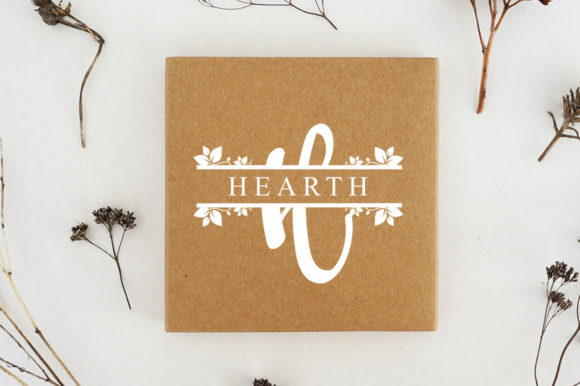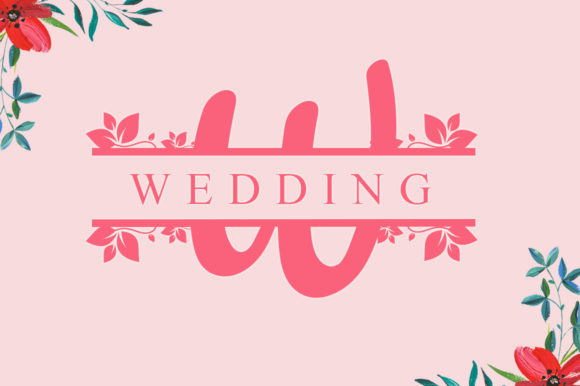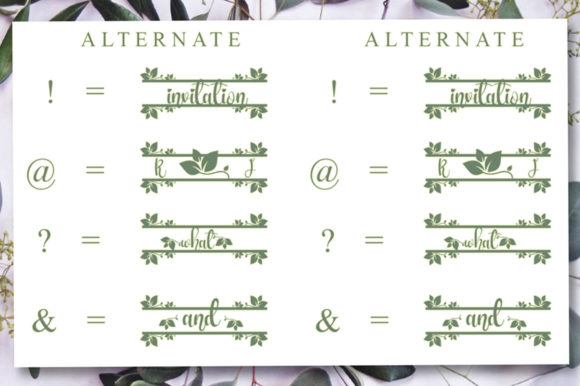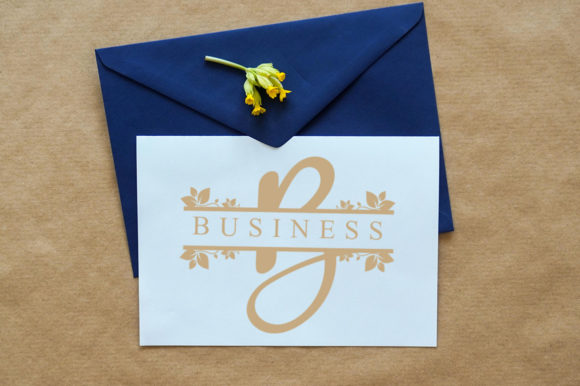
The Ultimate Guide to Absolute Monogram Font: Elevate Your Designs with Elegance
I’ll never forget the time I was working on a wedding invitation project, and my client asked for a font that exuded luxury and sophistication. I scoured the internet, tried countless fonts, but nothing seemed to fit the bill. That was until I stumbled upon Absolute Monogram Font. ✨ It was love at first sight! The intricate details, the elegant style, and the versatility of this font made it the perfect choice for my project. In this article, I’ll share my experience with Absolute Monogram Font, its features, and how to make the most of it in your designs.
An Honest Review of Absolute Monogram Font
• ✨ Highly detailed and decorative design
• ✅ Elegant and sophisticated style
• ✅ Perfect for wedding invitations, stationery, and social media posts
• ✅ Easy to read and understand, even in small sizes
While Absolute Monogram Font is an amazing font, there are a few things to keep in mind: ⚠️
• 🤔 Some characters may require manual kerning for optimal spacing
• ⚠️ Not suitable for body text or long paragraphs
3. Experiment with OpenType features, such as glyphs and stylistic alternates, to add visual interest
The Designer Inspiration Behind Absolute Monogram Font
The designer behind Absolute Monogram Font drew inspiration from traditional calligraphy and monogramming techniques. With a passion for elegant design and attention to detail, they created a font that would elevate any project to new heights. 💫
What is the best use for Absolute Monogram Font? Absolute Monogram Font is perfect for wedding invitations, stationery, social media posts, and any project that requires an elegant and sophisticated touch.
Is Absolute Monogram Font easy to read? Yes, Absolute Monogram Font is designed to be easy to read, even in small sizes. However, it’s best suited for headings and titles rather than body text.